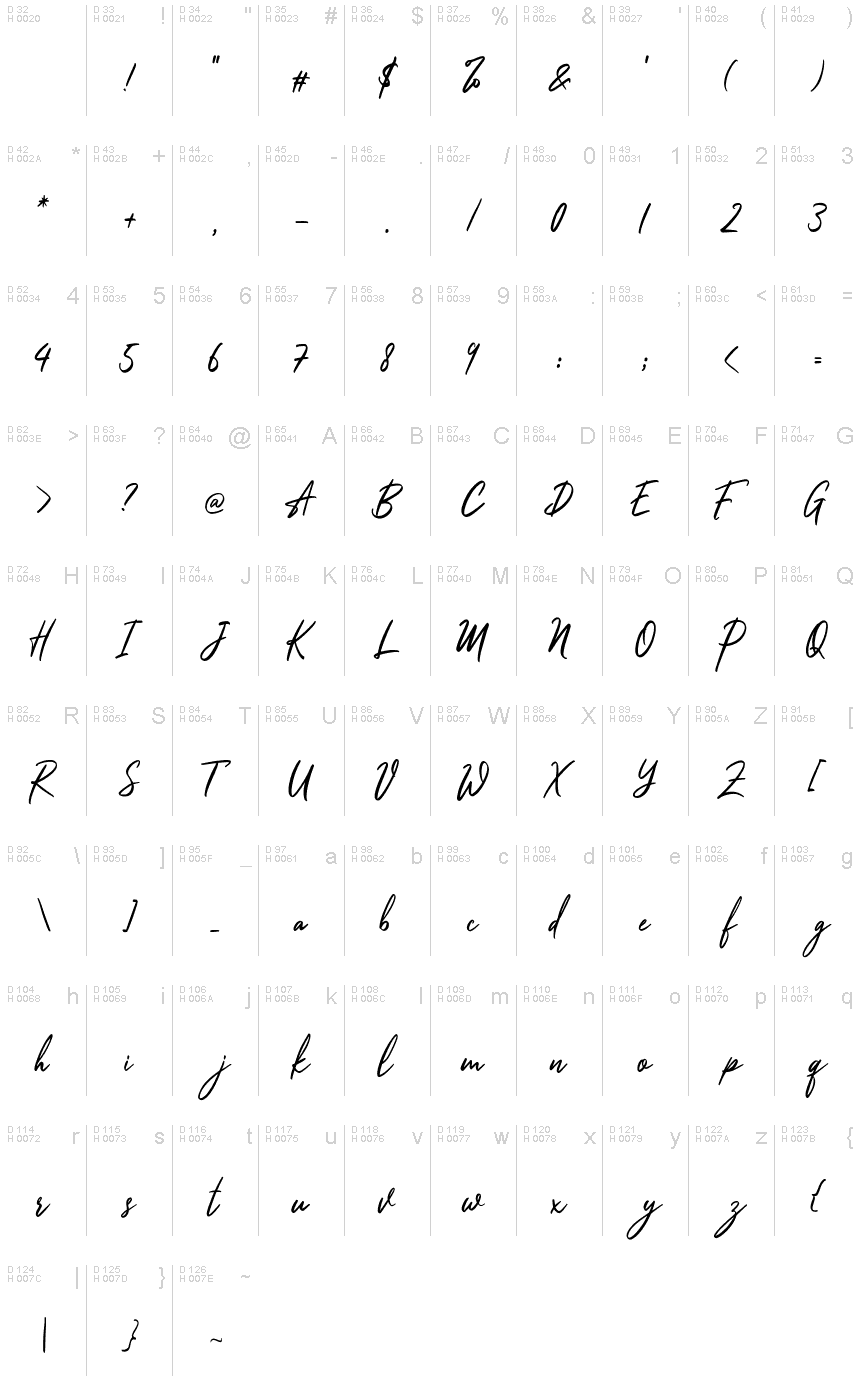
Romagnitta
Romagnitta, envisioned by the talented Ikrar Bey Khubaib, is a semi-light font that captures the essence of handwritten signatures with an air of elegance and personal touch. Its fluid, organic curves and subtle weight variations evoke a sense of authenticity and sophistication, making it an ideal choice for branding, upscale packaging designs, and bespoke stationery.
Perfect for designers looking to infuse their projects with a signature style that stands out, Romagnitta's charming character offers versatility in both digital and print mediums. Whether creating captivating logos or heartfelt invitations, this font will add a stroke of individuality to your creative work.